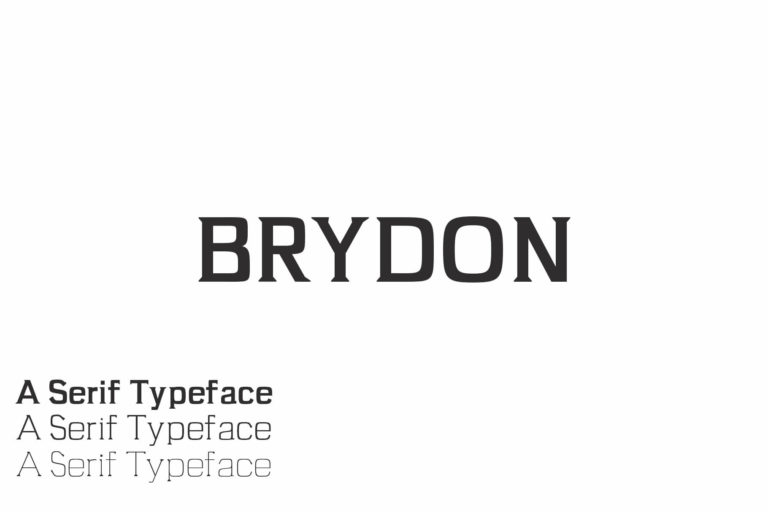
- Brydon Serif Typeface
Brydon Regular
Brydon Thin
Brydon Light
Brydon Serif Typeface is a simple serif font family, which contains 3 weights and It features unique and modern serif look and feel. Perfect for gorgeous logos, titles, web layouts and branding. It looks gorgeous in all caps with a wide-set spacing if you want to try a classy look, or beautiful on its own in capital and lowercase letters for something completely timeless.
- Font Weight: Regular, Thin and Light